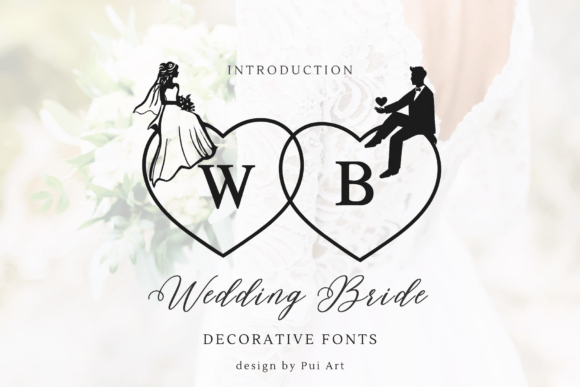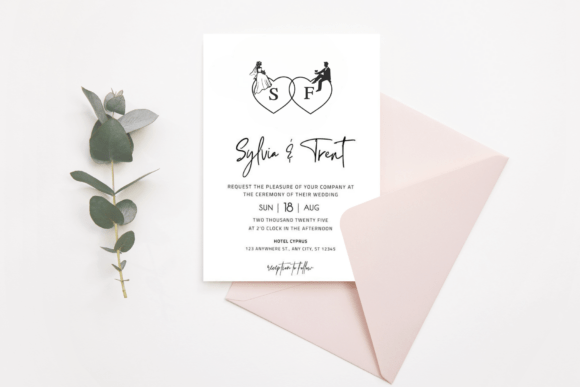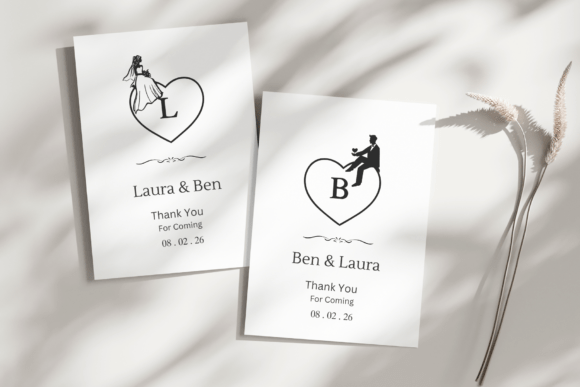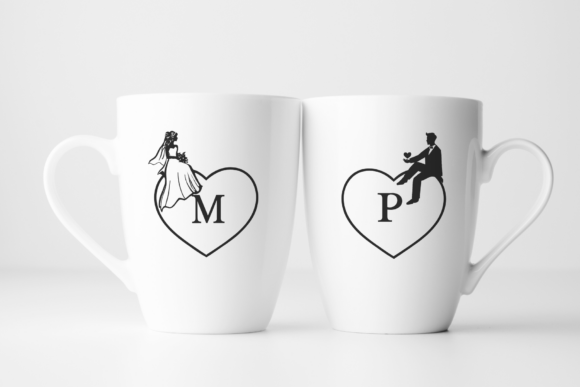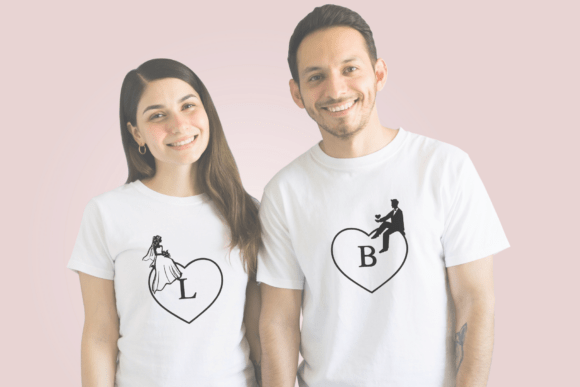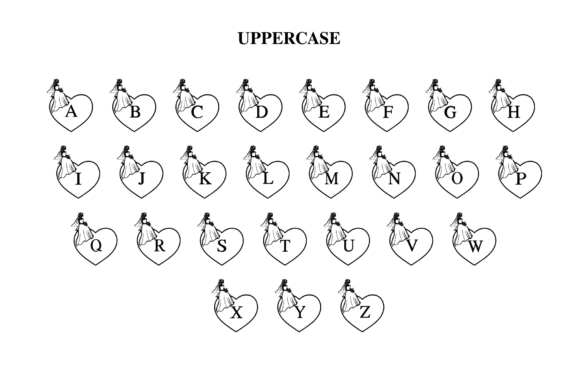
Wedding Bride Font
Wedding Bride is a romantic decorative font that captures the elegance and charm of wedding celebrations. Its flowing script style is rich with graceful swashes and soft curves that evoke handwritten calligraphy. The delicate ligatures and heart-themed glyphs enhance its emotional warmth, making it ideal for wedding invitations, bridal branding, event signage, and love-themed projects. Designed to look effortlessly elegant, Wedding Bride stands out with its refined flourishes and sentimental tone, turning simple words into graceful declarations of love.